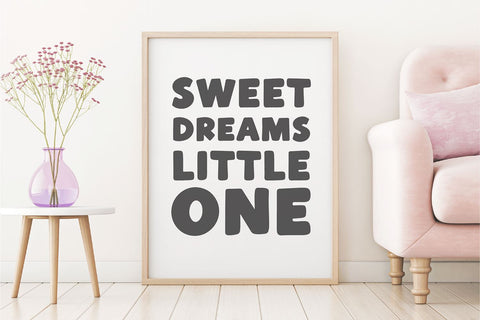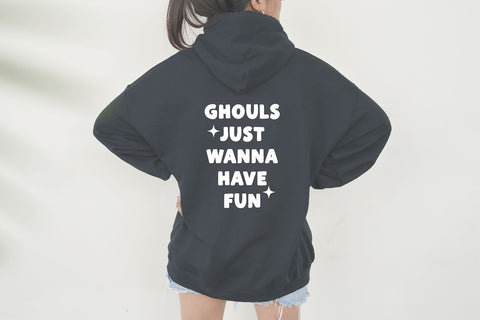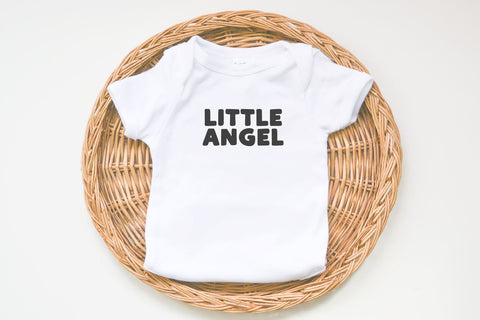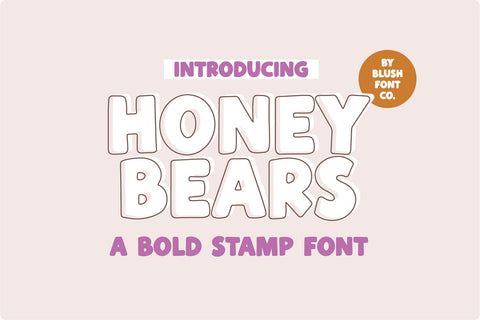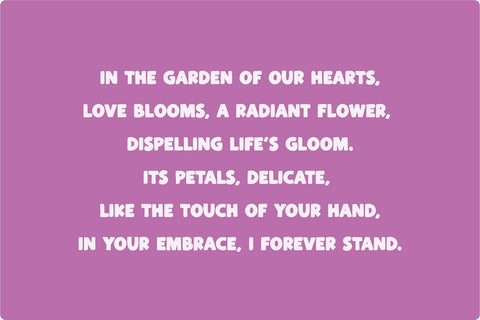
Honey Bears Bold Stamp Font
"Honey Bears" a bold inky block font.
This font is a bold display font that is perfect for social media or crafty projects. Use it for branding, crafts for decor, invitations, and more! All caps glyphs, numbers, and punctuation marks.